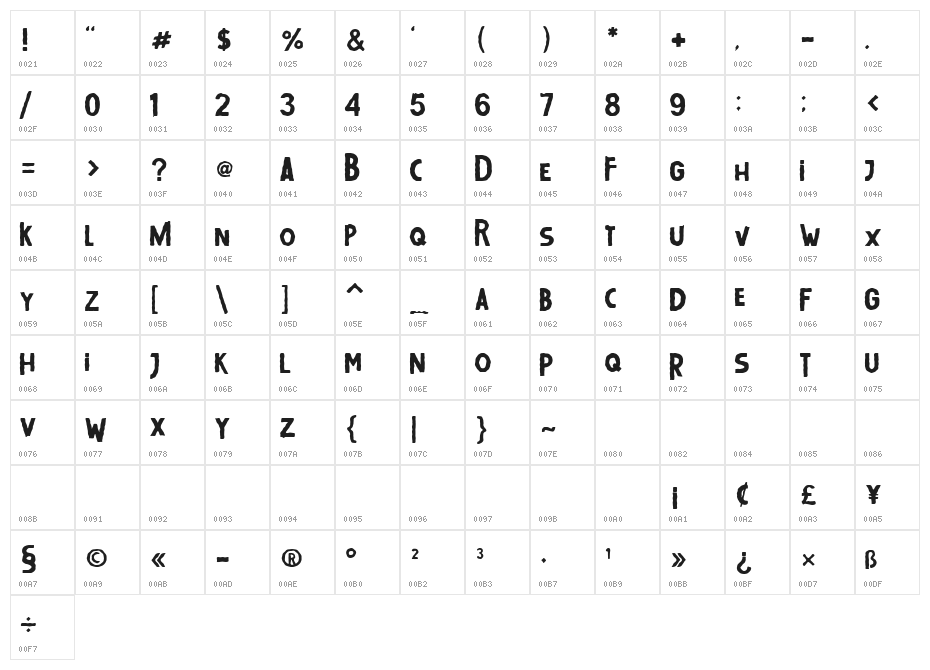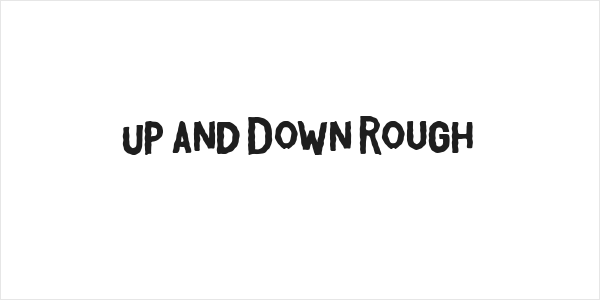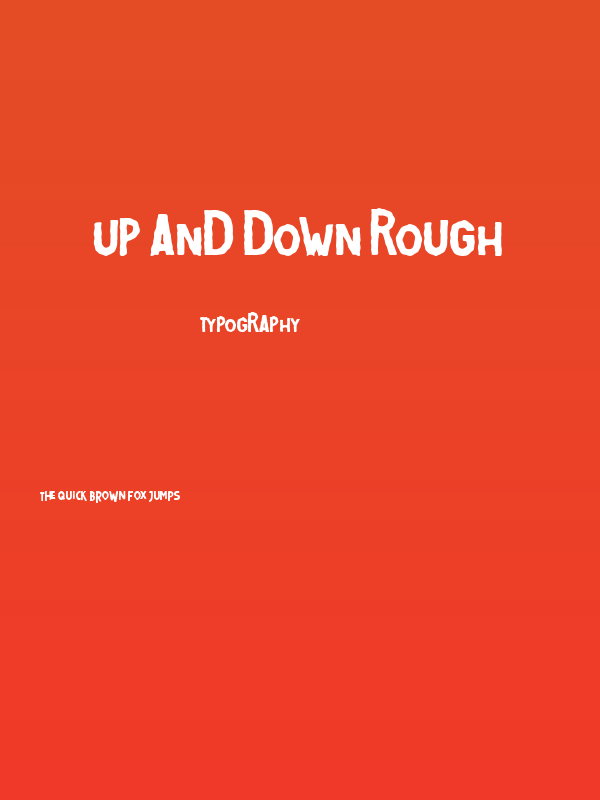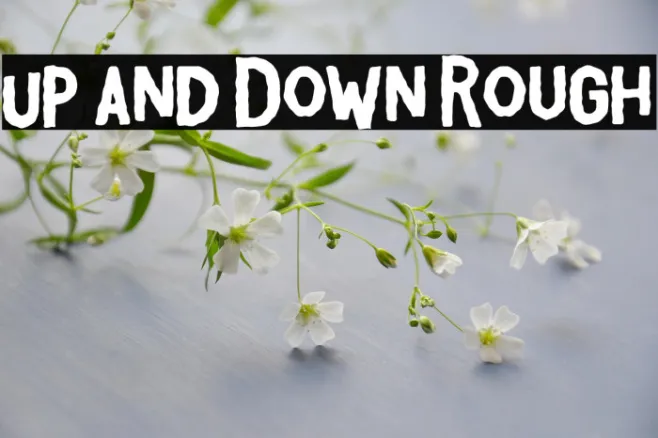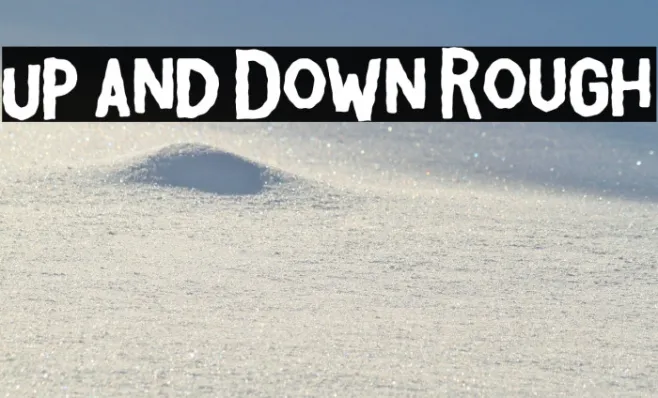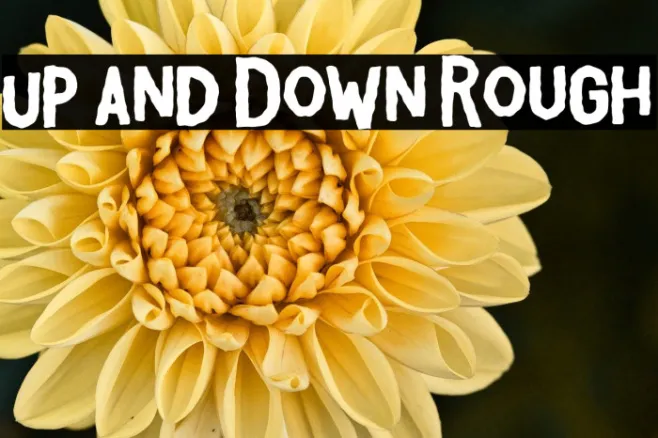
Up and Down Rough Font
Up and Down Rough Description
This font features a rugged, hand-drawn style with uneven edges, giving it a distinctly organic and playful appearance. The characters are bold and slightly irregular, with varying stroke thickness that adds to its dynamic and lively feel. The uppercase and lowercase letters maintain a consistent height, while the numbers and special characters follow the same rough aesthetic. This font's unique texture makes it stand out, providing a sense of movement and energy.
| Overall Style | Playful, Organic |
| Use Case | Headlines, Posters, Branding |
| Proposed Projects | Ideal for creative projects such as posters, children's books, and branding that requires a fun and informal touch. |